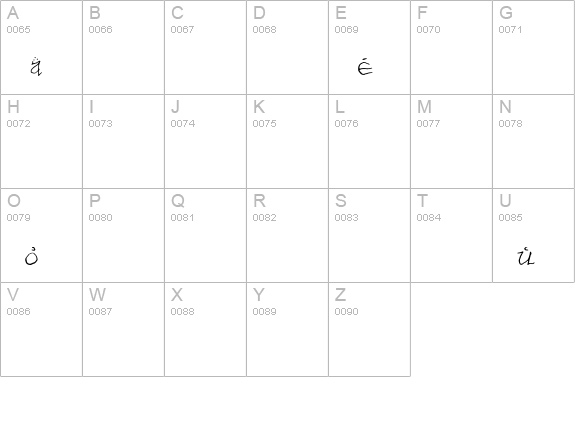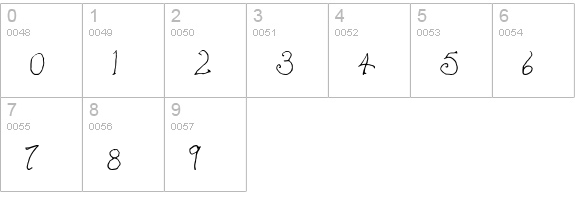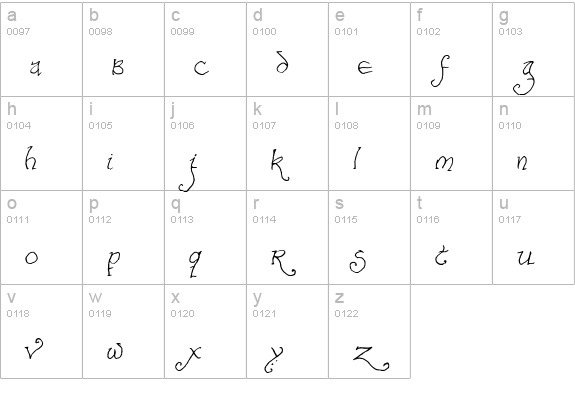
Bilbo-hand Regular is the standard, neutral variant in the Bilbo typeface family \xE2\x80\x94 well suited to general body text, paragraphs, and standard typographic work.
Bilbo-hand Regular font is a charming and whimsical typeface that exudes a sense of playfulness and creativity. Its flowing lines and unique letterforms give it a distinctive and friendly appearance, making it perfect for adding a touch of personality to your designs. This delightful font is ideal for a variety of projects, from invitations and greeting cards to logos and branding. Whether you're looking to create a fun and casual look or add a touch of whimsy to your designs, Bilbo-hand Regular is sure to make a statement. Best of all, Bilbo-hand Regular font is available for free download at FontsMarket.com. This means you can easily add this delightful font to your collection without breaking the bank. So why wait? Download Bilbo-hand Regular today and let your creativity shine!